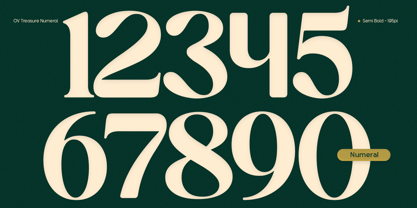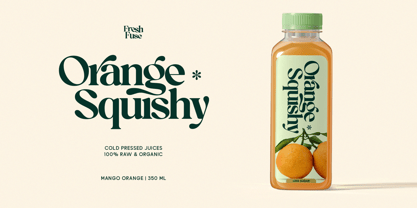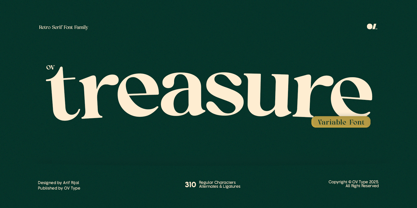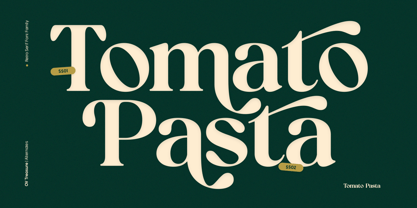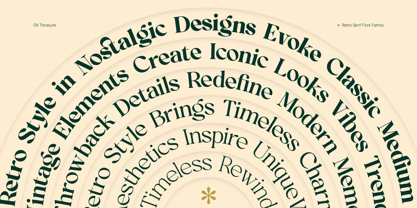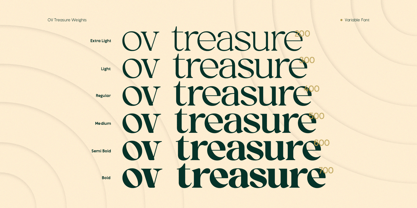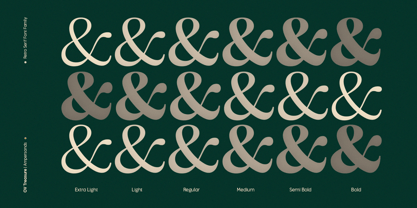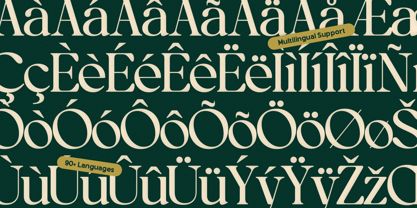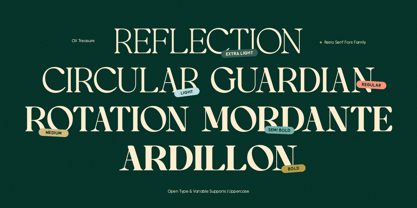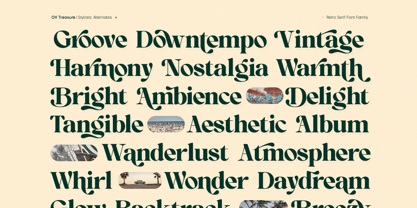
OV Treasure
La familia tipográfica OV Treasure fue diseñada por Arif Rijal y publicada por OV Type. OV Treasure contiene 6 estilos y opciones de paquete familiar.
OV Treasure is a retro serif font designed to bring the aesthetics of the vintage era to life with a modern twist. Featuring bold characters, curved letterforms, and unique detailing, this font strikes the perfect balance between nostalgia and elegance. It’s perfect for various design projects, including branding, posters, packaging, magazine headlines, and retro-themed websites.
What Makes It Unique:
Retro Aesthetics: A classic style inspired by mid-century designs and 70s vibes, delivering an authentic retro feel.
Distinctive Features: Curved serif detailing adds a touch of elegance and recognizability.
Versatile Styles: Available in multiple weights and styles (Extra Light, Light, Regular, Semi Bold, Bold) for diverse design combinations.
Complete Character Set: Supports multiple languages with a full set of characters, including symbols, numerals, and punctuation.
Design Concept:
This font was crafted for designers seeking a bold yet functional retro style. Inspired by vintage signage and classic editorial designs, OV Treasure blends historical value with contemporary design needs.
Font Pairing Suggestions:
OV Treasure pairs seamlessly with modern sans-serif fonts like OV Soge or clean monoline fonts to create visual harmony in branding projects.
Features:
Multilingual Support: Covers 90+ languages.
Style Options: Includes Extra Light, Light, Regular, Semi Bold, Bold.
OpenType Features: Offers ligatures, alternate glyphs, and stylistic sets to enhance creative designs.
OV Treasure is the ideal choice for designers looking to create retro-inspired projects with authenticity and style, perfect for branding, editorial layouts, and attention-grabbing promotional materials.